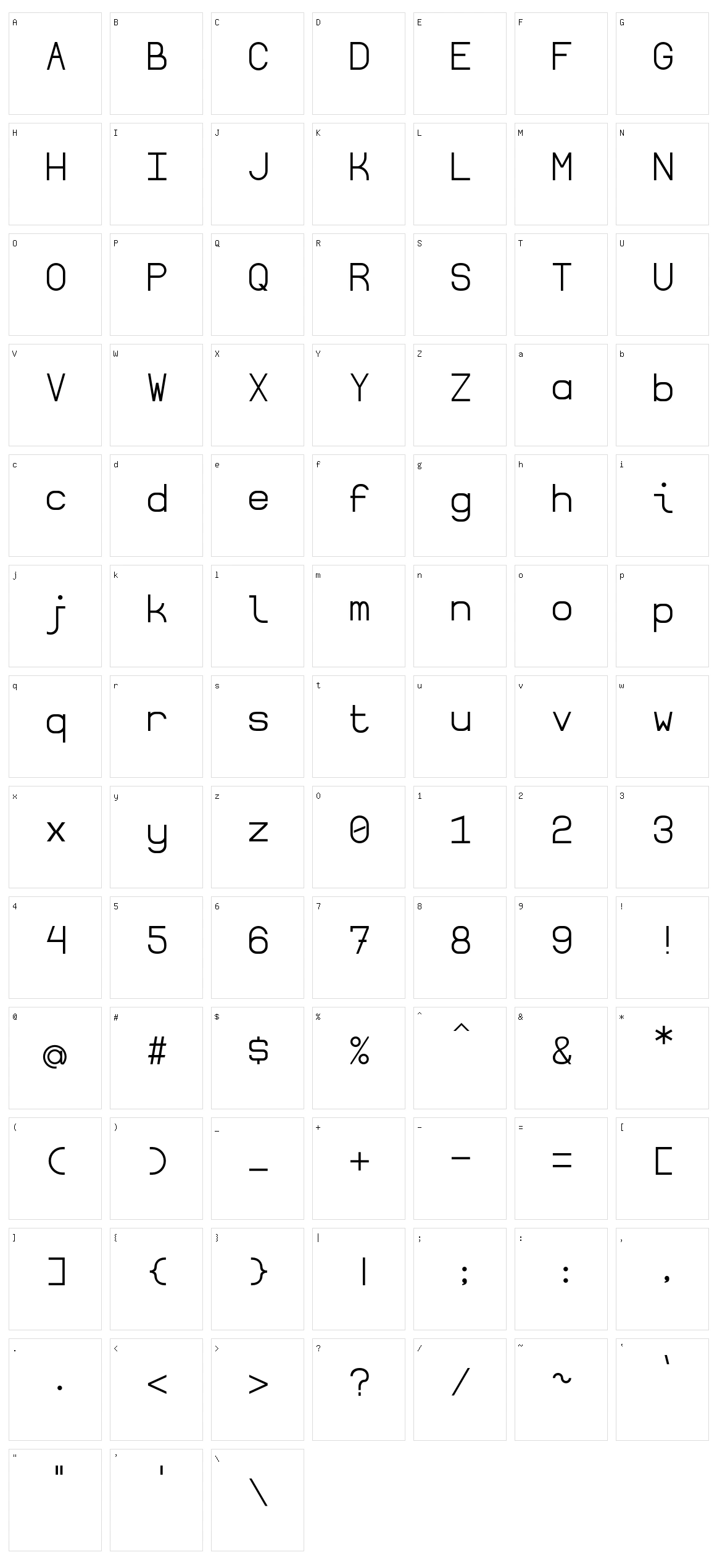
The free font Borgen is carefully designed by ThorType, showcasing a thoughtful balance of creativity and usability and falls under the Fixed width font style. When you download the ZIP file, it contains only 186.26 KB of font files, making it lightweight and quick to download. Please review the license details below to understand permitted usage and distribution rights. If license information is not available, we recommend using this font for personal projects only or contacting the author directly for commercial usage permissions.